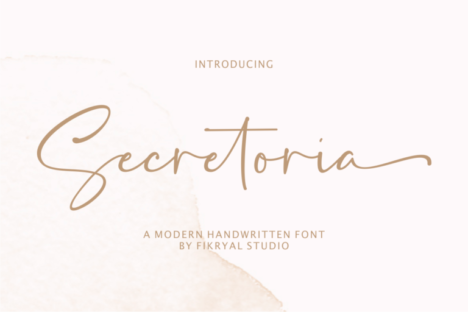
- Secretoria – Modern Handwritten Font
Secretoria
Secretoria – is a modern handwritten font. This font is made in a modern style with a beginning and ending swashes, very casual and suitable for your various design needs. it’s perfect for logo, branding, title, social media posts, advertisements, product packaging, product designs, label, photography, watermark, special event, magazine, web design, etc.
- Secretoria ( Uppercase, Lowercase )
- beginning and ending swashes